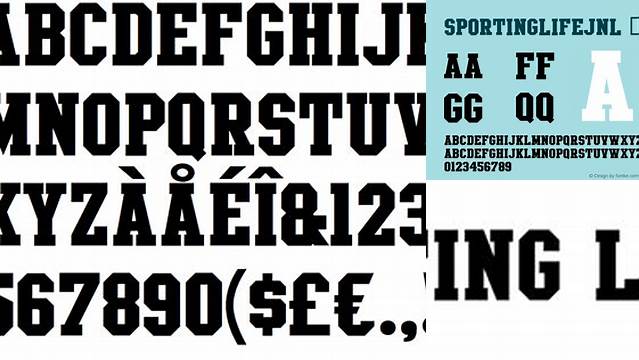
Sporting Life JNL Font Free Download Guide & Creative Uses
What is the Sporting Life JNL Font?
So, what exactly is the Sporting Life JNL font? It's a display font, meaning it's designed to grab attention. Think bold headlines, eye-catching logos, and anything that needs a touch of personality. This font has a distinct retro feel, reminiscent of classic sports branding and vintage signage. The characters have a strong, confident presence, making it ideal for projects where you want to convey energy and a sense of nostalgia. It's the kind of font that just looks fun! The creators clearly had a vision for something that embodies the spirit of sports and the thrill of competition. Sporting Life JNL font is more than just letters; it's a visual representation of action, excitement, and the good ol' days. The font's unique character design sets it apart from the generic typefaces, giving your designs a memorable edge. It’s like giving your project a vintage sports coat – instantly stylish and cool. Whether you're working on a sports-related project or simply want a font with character, Sporting Life JNL is a fantastic choice. Trust me; once you start playing with it, you'll find yourself brainstorming all sorts of creative uses. It’s a font that inspires creativity and allows you to experiment with different styles and designs. Using Sporting Life JNL font can transform your design. When you download and start playing with it, you will immediately see the potential it has to bring your vision to life. Whether you're designing a website, a poster, or social media graphics, this font has the power to elevate your project from good to great. The versatility of this font is what makes it a favorite. You can use it for anything from headlines to body text. Get ready to take your designs to the next level with the Sporting Life JNL font!
Creative Uses: Ideas to Spark Your Imagination
Now, let's get to the fun part: how can you actually use the Sporting Life JNL font? The possibilities are endless, but here are a few ideas to get your creative juices flowing. First off, think about using it for sports-related projects. Sporting Life JNL is perfect for designing logos, team names, and promotional materials for sports teams, events, and even online stores. The retro vibe instantly connects with the audience, evoking a sense of nostalgia and excitement. Imagine creating a vintage-inspired poster for a local baseball team or a dynamic logo for a basketball league. The font's bold and energetic style makes it ideal for grabbing attention and conveying a sense of action. Moreover, consider using it for other branding projects. Its unique character allows for creating memorable brand identities, whether for a clothing line or a cafe. The distinctive look of the font can help your brand stand out from the crowd and create a strong visual identity that resonates with your target audience. Beyond branding, consider applications like designing website headers, social media graphics, and even custom invitations. The font's versatility allows you to create visually appealing designs for various purposes. In website design, use it for headlines or subheadings to add a touch of personality and visual interest. For social media, create engaging graphics for quotes, announcements, or promotions. The Sporting Life JNL font can elevate your content and make it more shareable. With custom invitations, this font brings a touch of character to your designs. This font can be integrated into a range of designs, and its ability to adapt to different creative needs makes it a must-have in any designer's toolkit. You can even experiment with pairing Sporting Life JNL with other fonts to create unique and eye-catching designs. The key is to play around, explore different combinations, and see what works best for your project. The more you experiment, the more you'll discover the font's versatility and how it can enhance your design. Remember, there are no limits to your creativity; this font is only the starting point for your ideas! The great thing about this font is its flexibility.
Design Tips and Best Practices
To make the most of the Sporting Life JNL font, let's talk about a few design tips and best practices. Firstly, remember that this font is best used for display purposes. Avoid using it for long blocks of body text, as it can be challenging to read. Instead, reserve it for headlines, titles, and short phrases where you want to make a bold statement. When working with the font, pay close attention to kerning and spacing. Kerning refers to the space between individual letters, and adjusting it can significantly impact the overall appearance of your text. For example, you might need to tighten up the spacing between certain letter combinations to achieve a balanced look. Experiment with different kerning settings to find what works best for your design. Furthermore, consider color and background choices. The Sporting Life JNL font often looks great with bold, contrasting colors that complement the font's retro vibe. Think about using it on a dark background with bright colors or vice versa. Ensure there's enough contrast between the text and the background to make it easily readable. Similarly, play with effects such as drop shadows or outlines to make the text pop. Use these effects judiciously, as overuse can make your design look cluttered. The goal is to enhance the font, not to distract from it. Also, experiment with different sizes and weights of the font. The Sporting Life JNL font offers various weights, from light to bold. Choose a weight that complements your overall design and the message you want to convey. You can also play with font size to create visual hierarchy and draw attention to important elements. When using this font, make sure you are aware of the best practices. Following them ensures you can fully use this font. Take your time, try different combinations, and don't be afraid to experiment. That way, you will be able to produce fantastic designs.
Conclusion: Embrace the Retro Vibe